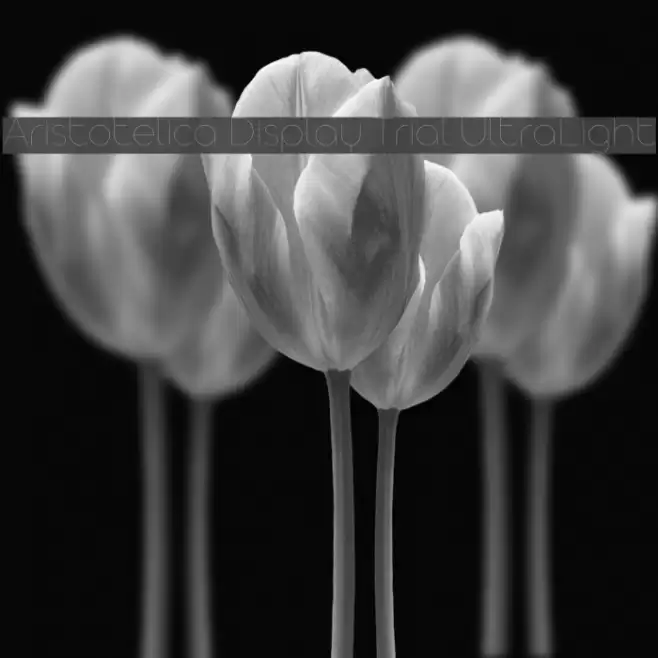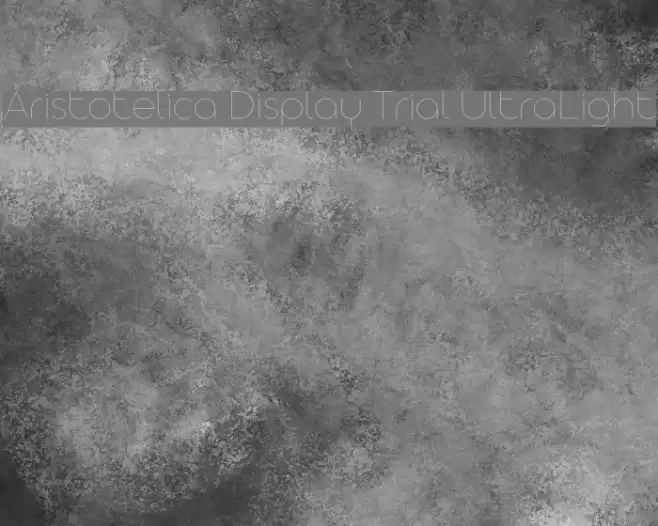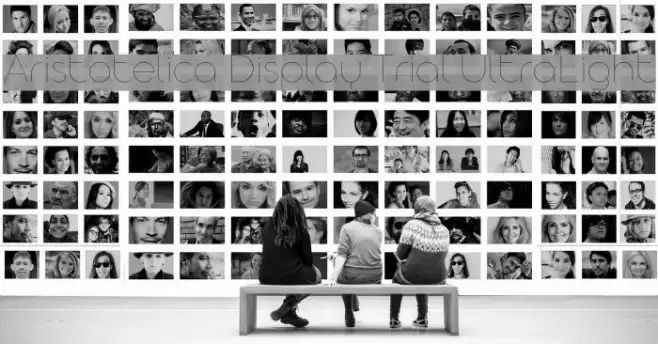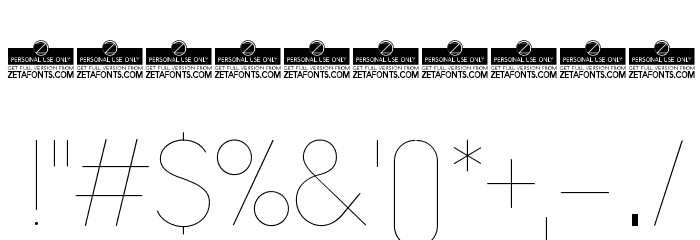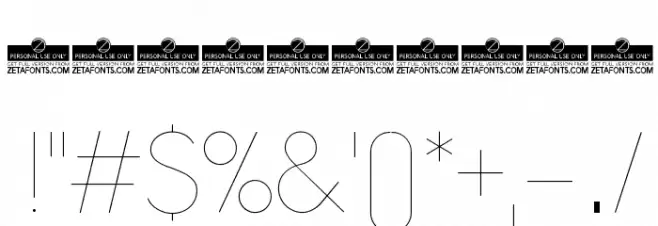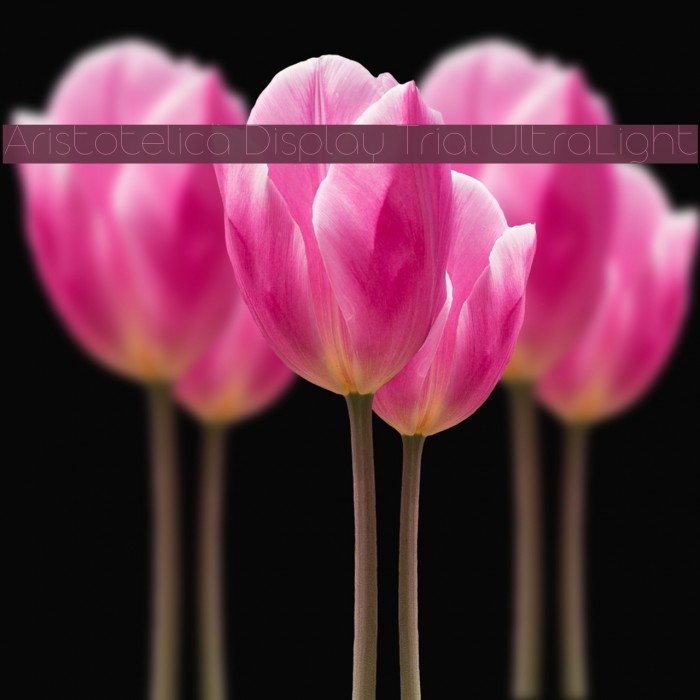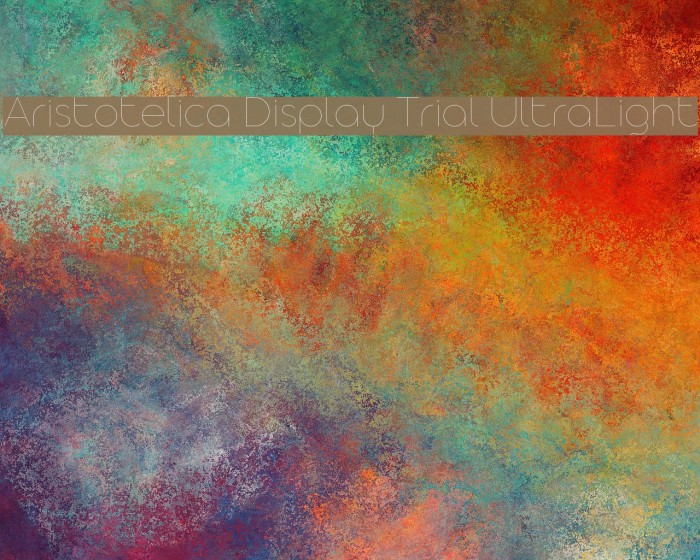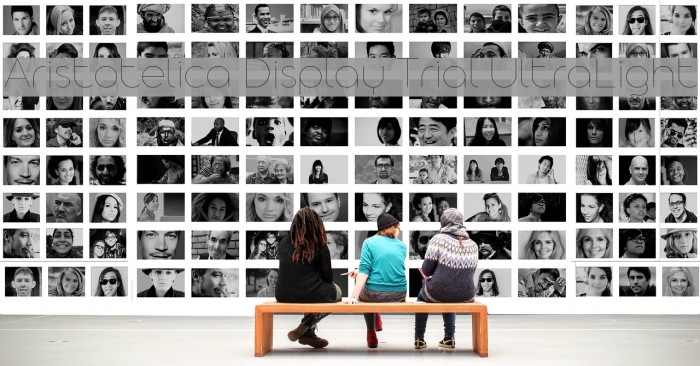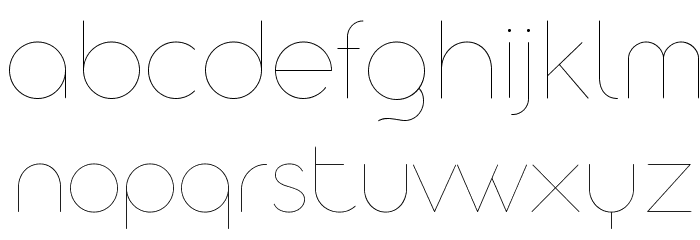
Aristotelica Display Trial UltraLight Font
Aristotelica Display Trial UltraLight Description
This font showcases a sleek, ultra-light design with a modern and minimalistic aesthetic. The characters are crafted with thin, consistent strokes that emphasize clarity and elegance. The uppercase and lowercase letters maintain a uniform height, contributing to a harmonious appearance. The numerals and special characters are designed to complement the alphabet, ensuring a cohesive look across all text elements. This font's simplicity and precision make it suitable for contemporary design projects where a clean and sophisticated look is desired.
A sleek, ultra-light font with a modern and minimalistic design from Uncategorized fonts.
- Proposed Projects: Ideal for branding, editorial design, and digital interfaces where a modern and clean aesthetic is required.